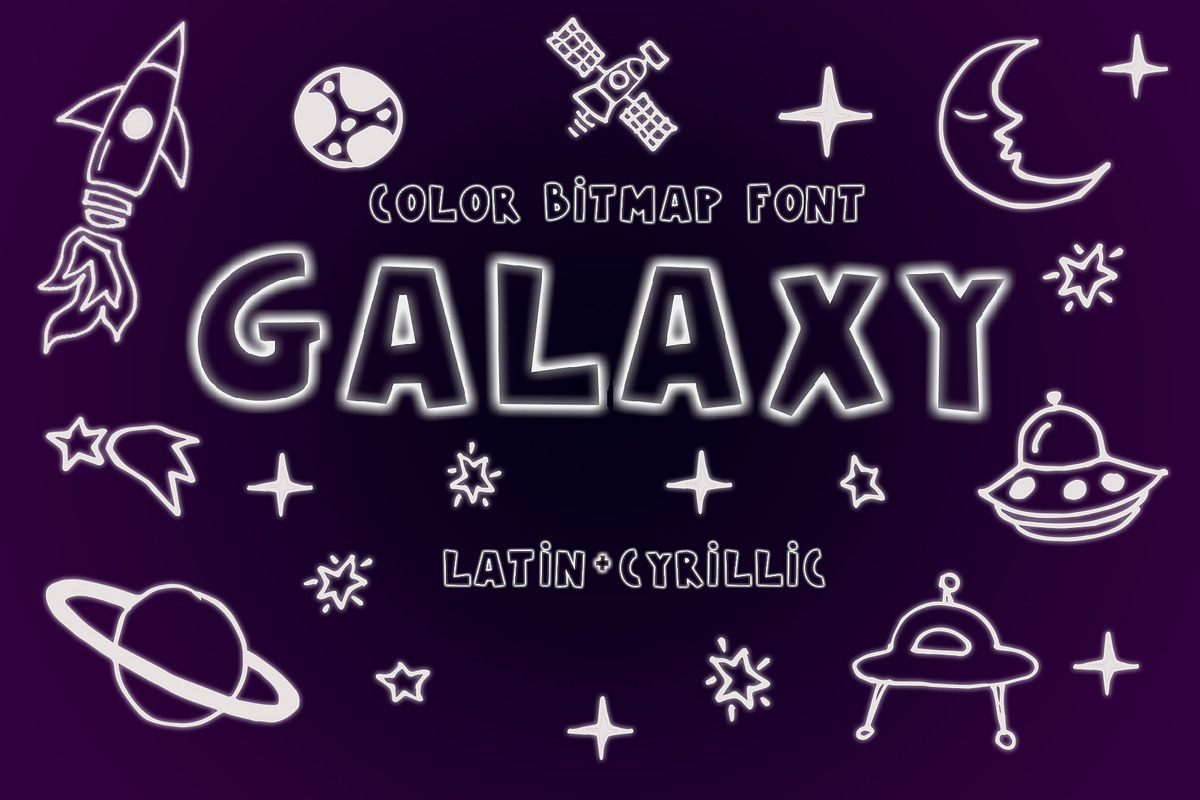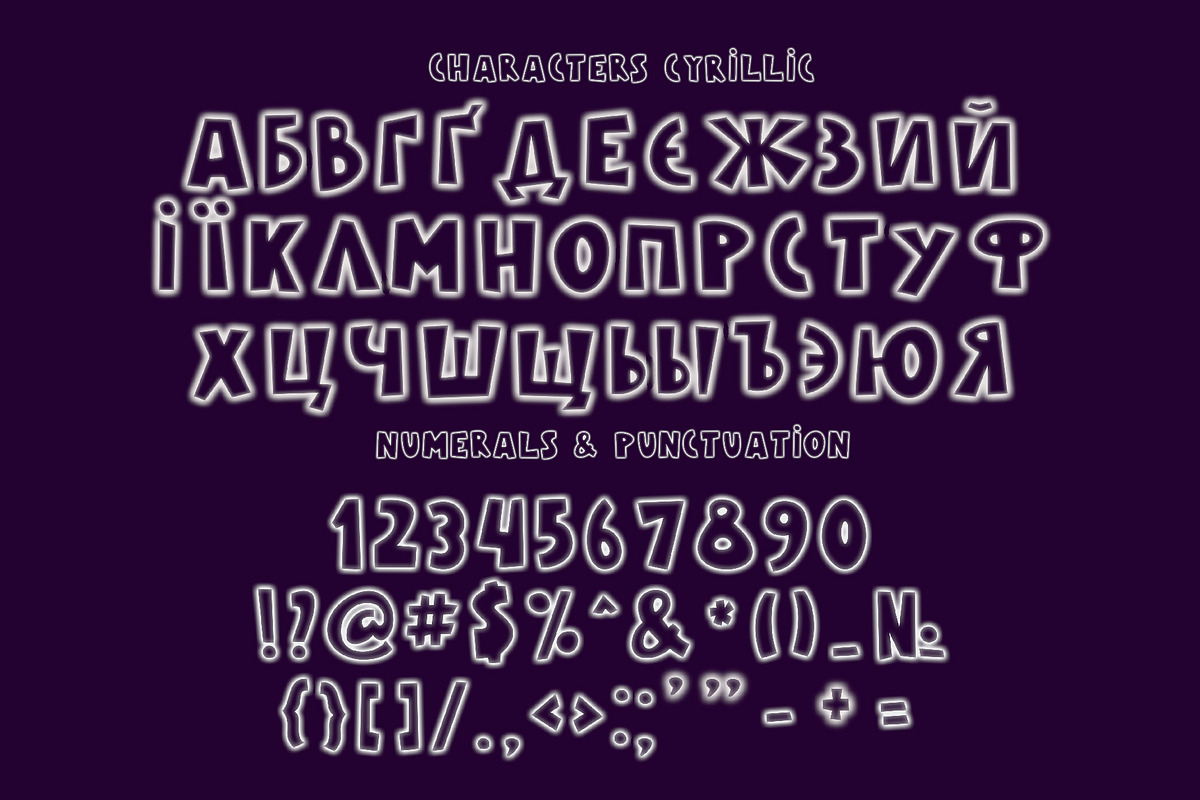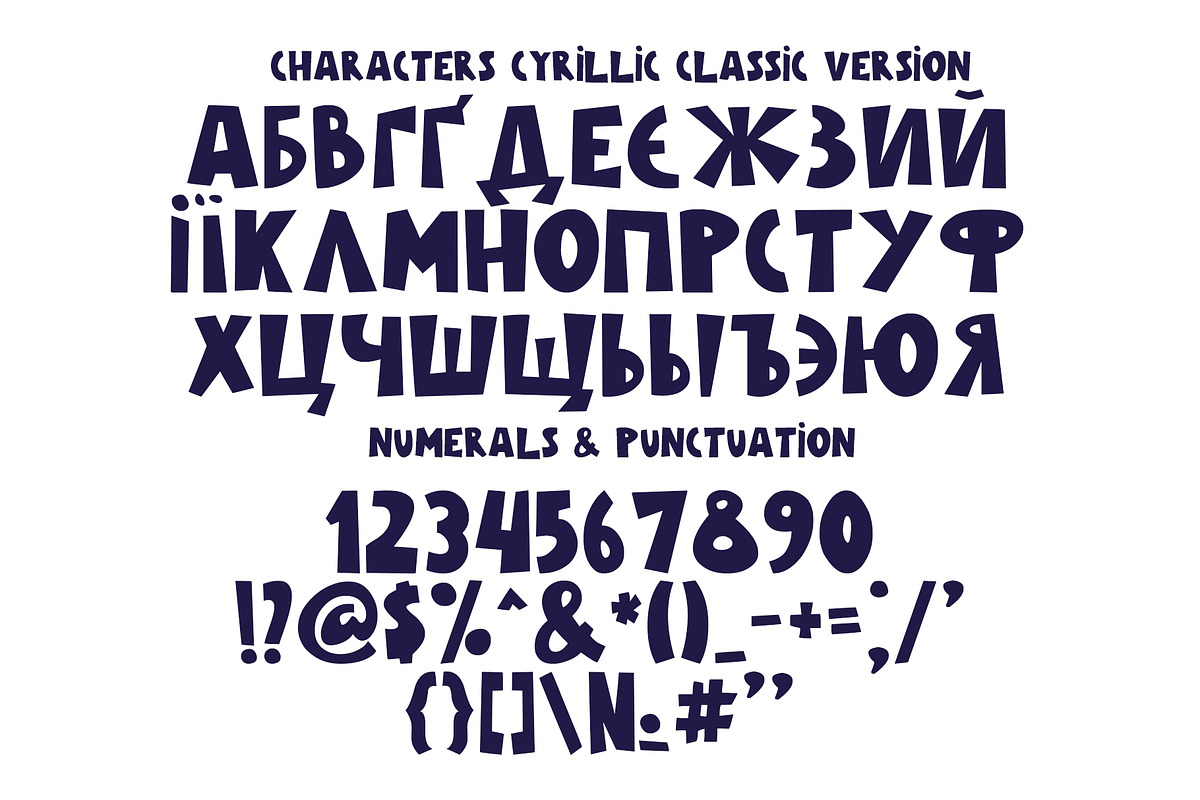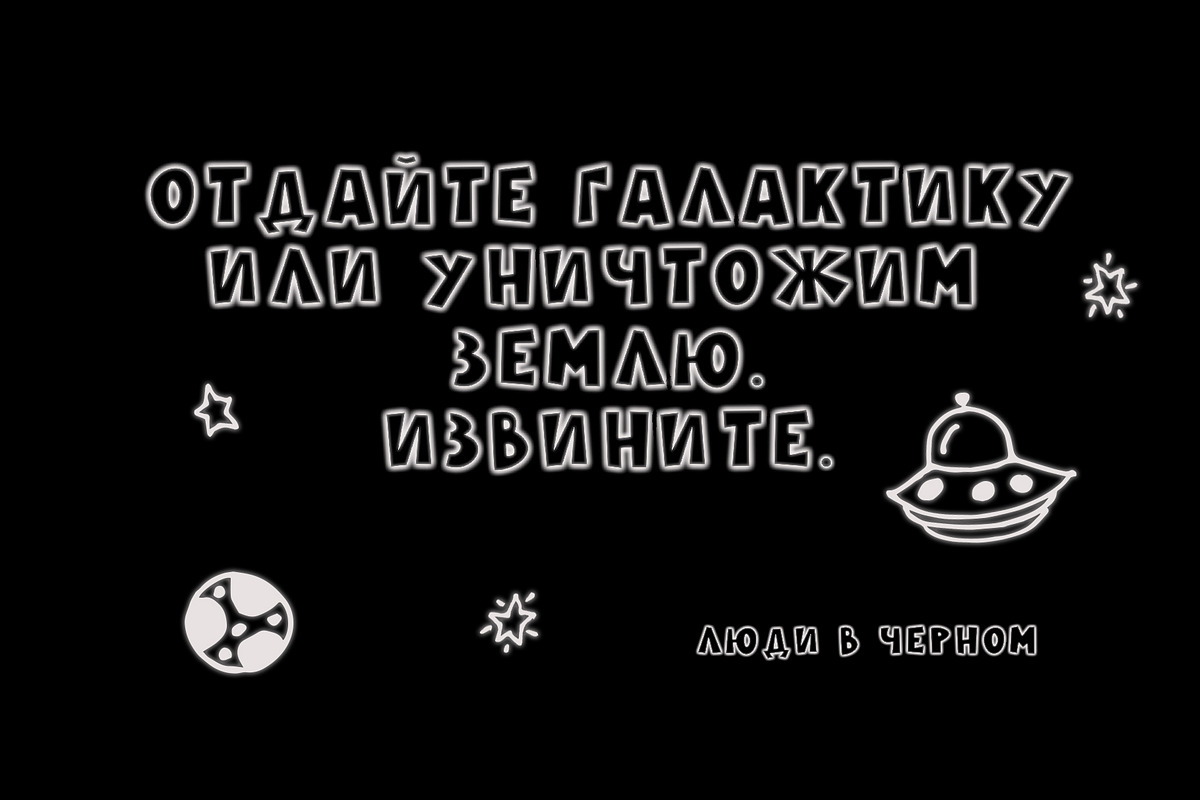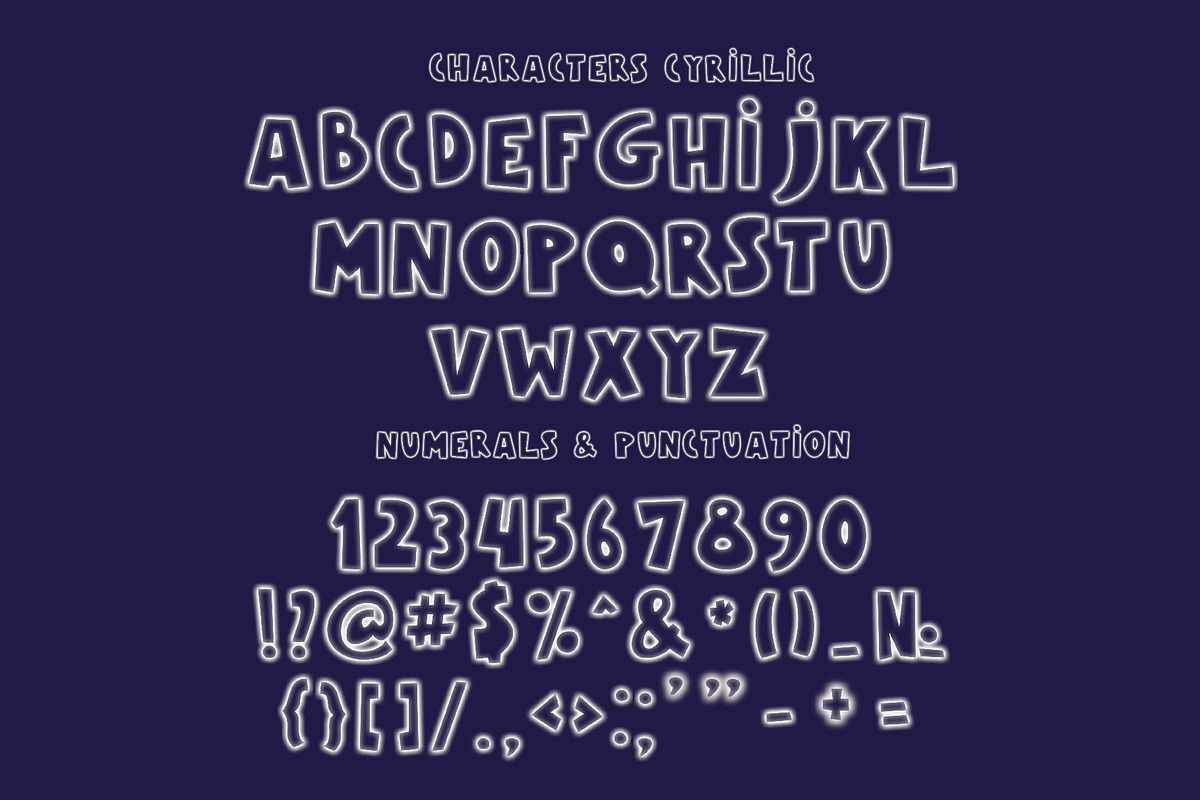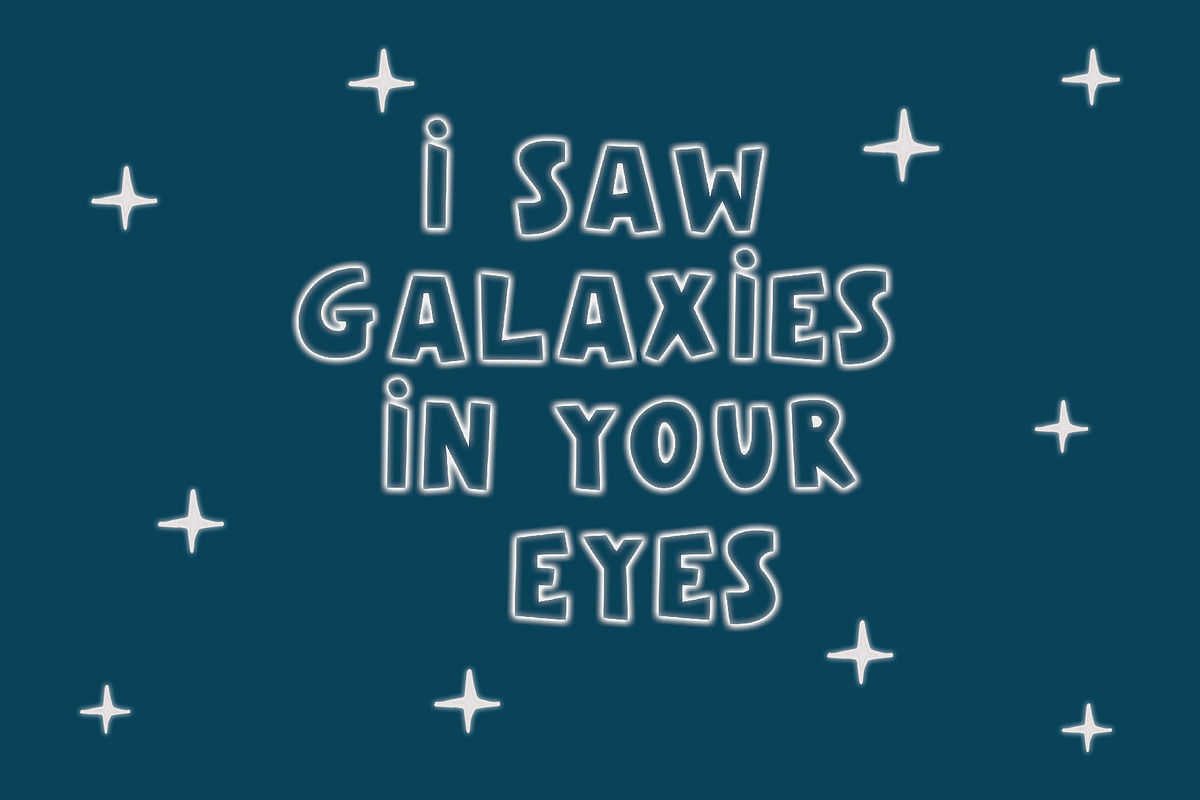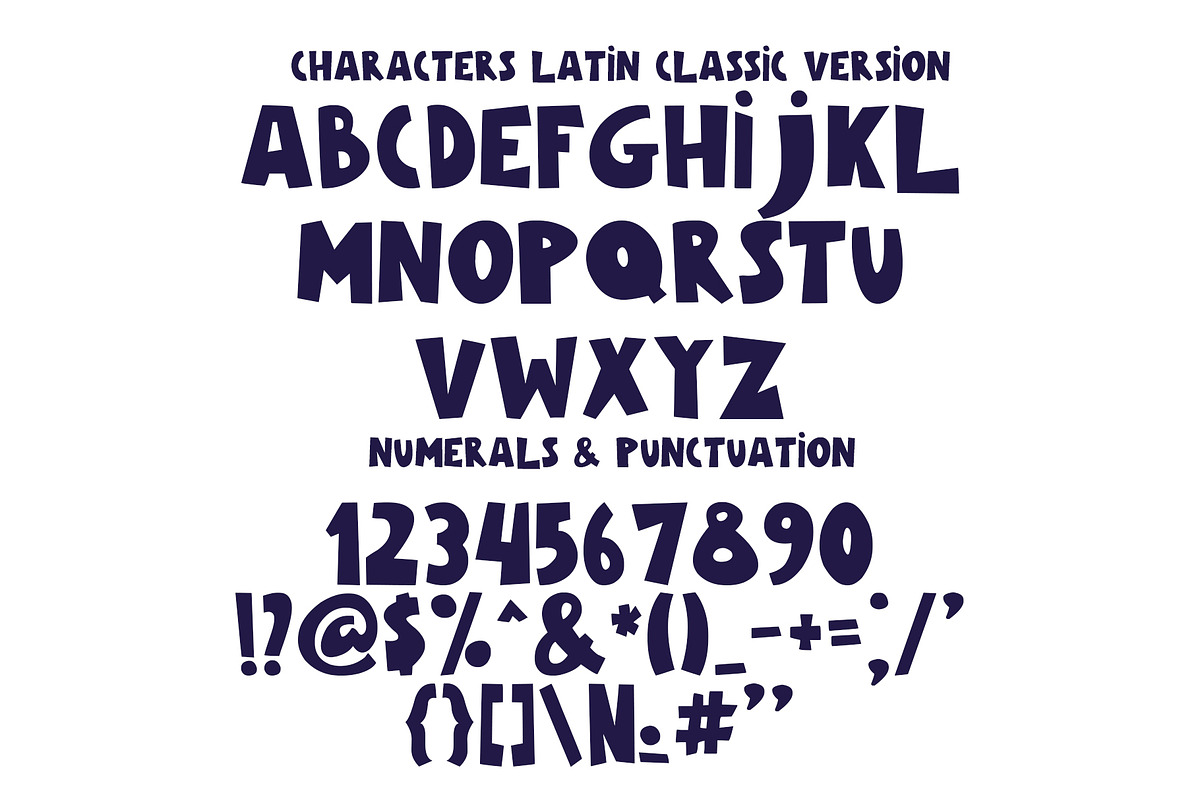
Galaxy Color Bitmap Font
I'm happy to present you my new color OpenType-SVG font – Galaxy with Latin and Cyrillic letters! It's a fun and cute font! This font work nicely for all sorts of things including t-shirt design, typographic art, social media images and so much more!
Galaxy Multicolor OTF font (you can type multicolor text)
Font features: Standard characters A-Z, 0-9,and punctuation + classic versionfor the Latin Basic and Western European set, Cyrillic А-Я set. Thanks and Enjoy!
Galaxy Color Bitmap Font by Malena fits naturally into Branding, posters, packaging, typography.